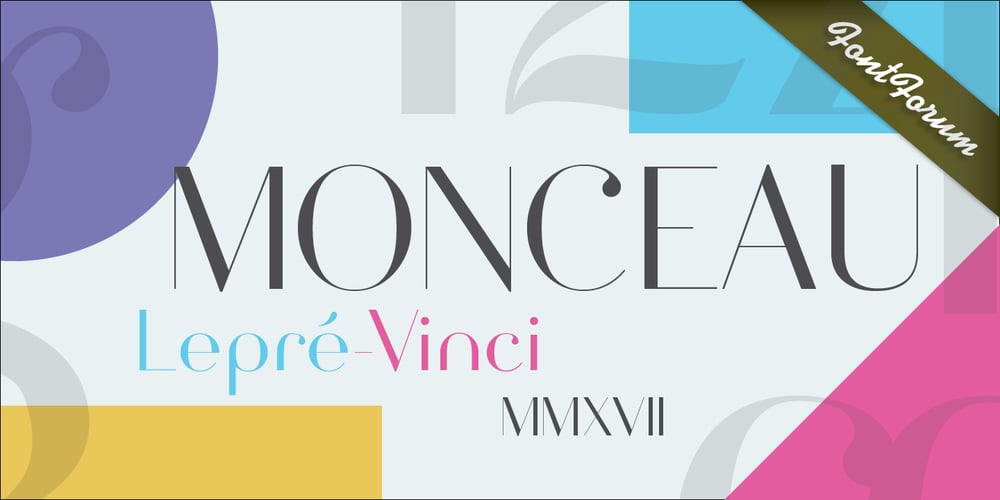
Monceau
Monceau font
Monceau Font Family was designed by Lepré-Vinci and published by URW Type Foundry. Monceau contains 1 styles and family package options. As a successor of Didots famous font, which marked the beginning of modern typography, the Monceau has inherited the spirit, elegance and sophistication of french style, although in a revamped design, typical for the first years of the 21st century. Liberated from its serifs and with soft and round small letters the Monceau approaches ornamental typography and thus perfectly lends itself to being enlarged: it’s a font that loves to be closely looked at. Its name, lent from the famous parc Monceau in Paris, evokes and reinvents in a modern graphical way all of the Parisian chic at the end of 18th and the beginning of the19th century (the time Didot was born), the French Revolution and Empire, the architecture of this business quarter and notably the arabesques of the monumental gates still present in our times.